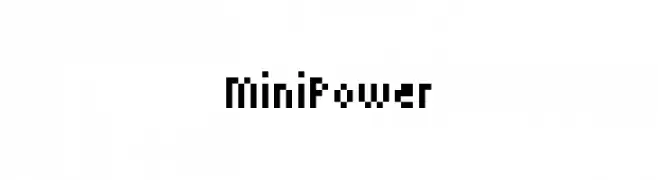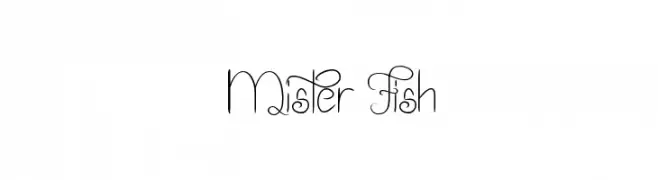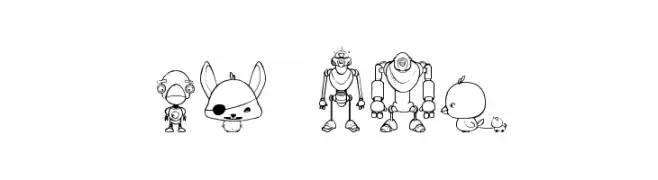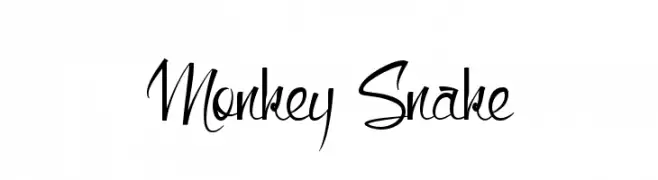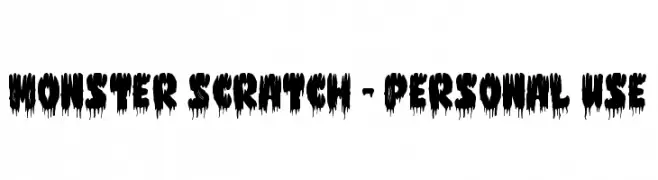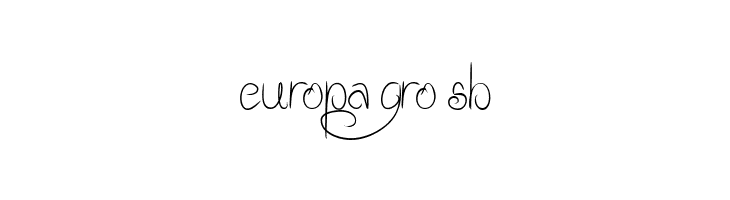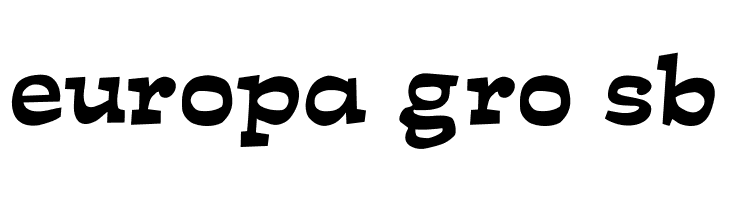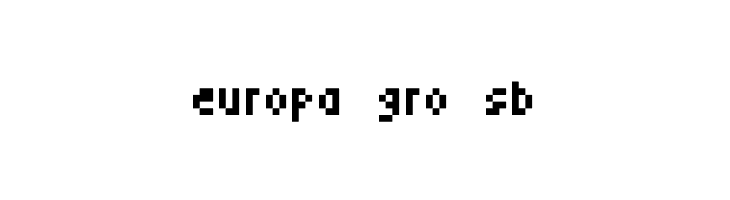
A playful, handwritten font with bold strokes and a dynamic, informal style.
A lively and flowing script font with elegant cursive letterforms.
A pixelated, retro-style font with a digital, arcade-like appearance.
A bold, playful font with a modern yet vintage appeal.
An elegant, whimsical font with intricate swirls and loops, perfect for decorative use.
A playful decorative font with unique cartoon character illustrations.
A playful and elegant font with flowing, cursive-like strokes and elongated serifs.
A bold, dripping font with a monstrous, eerie style.